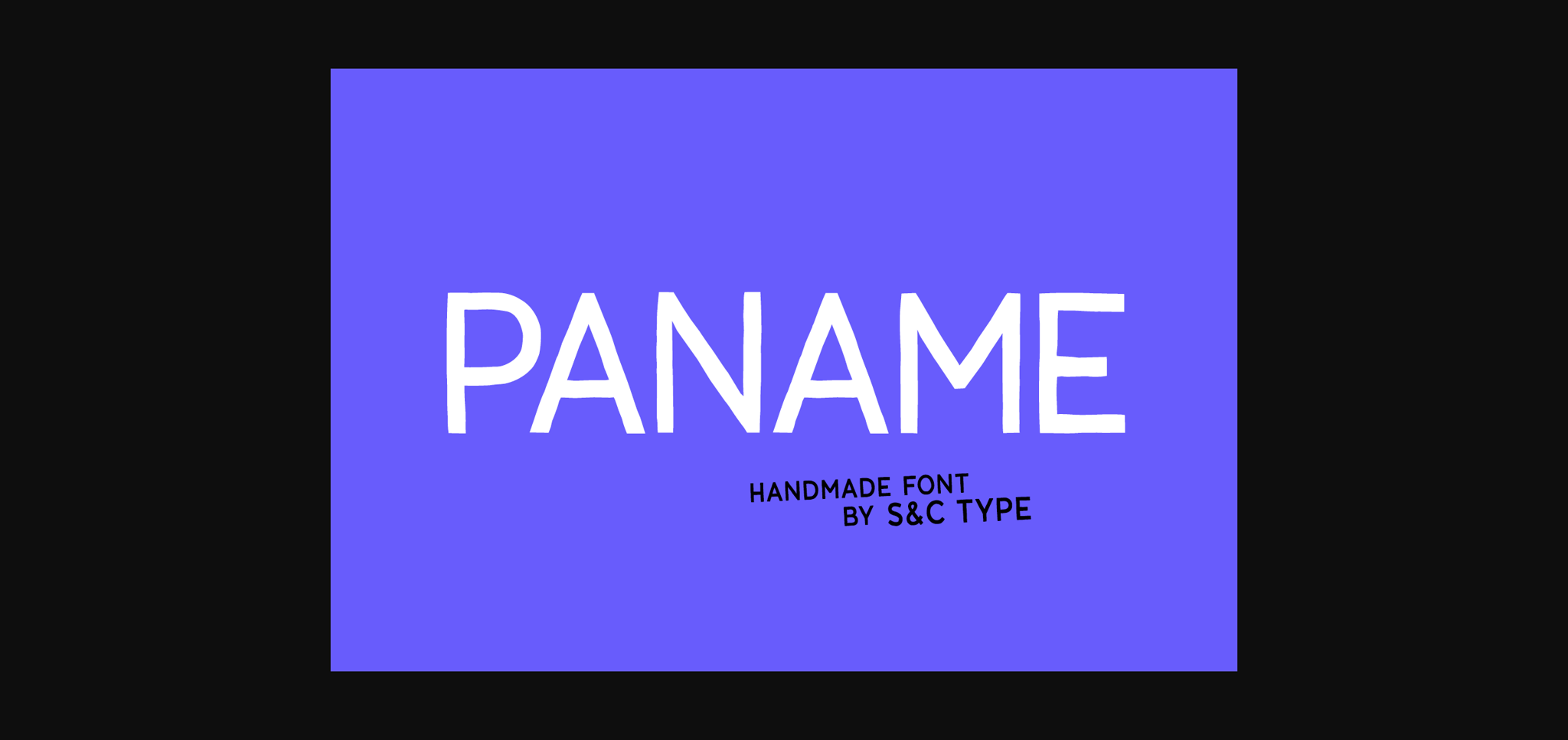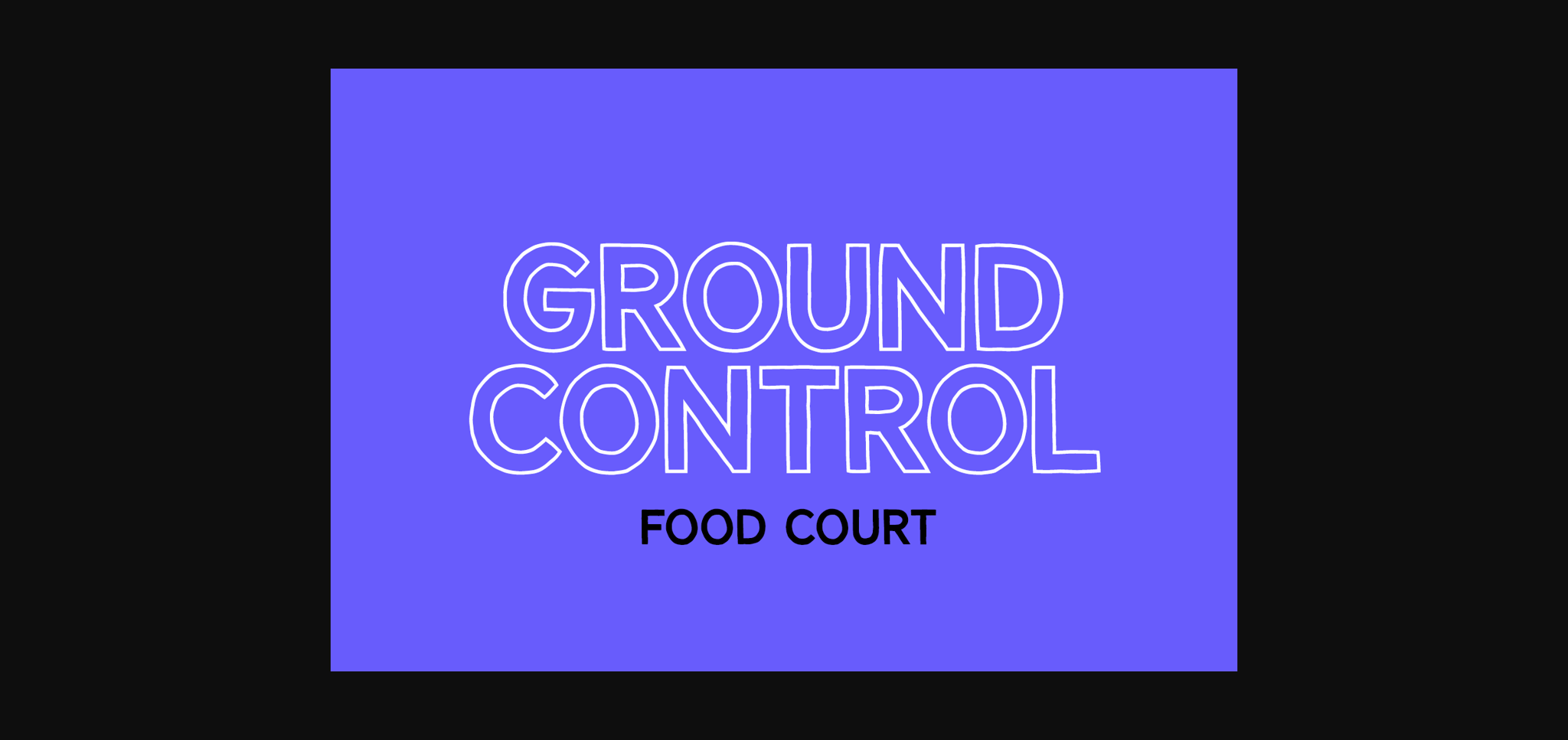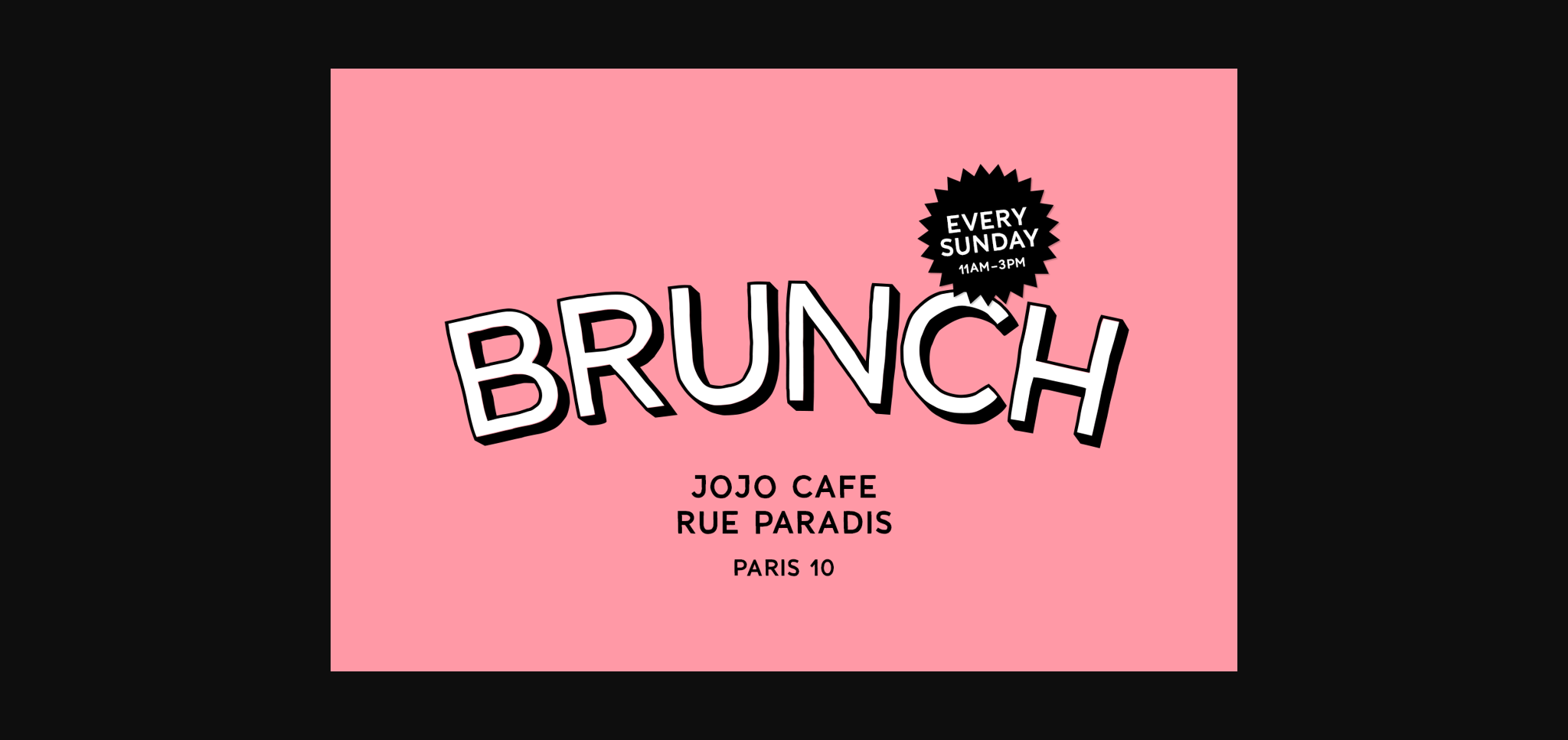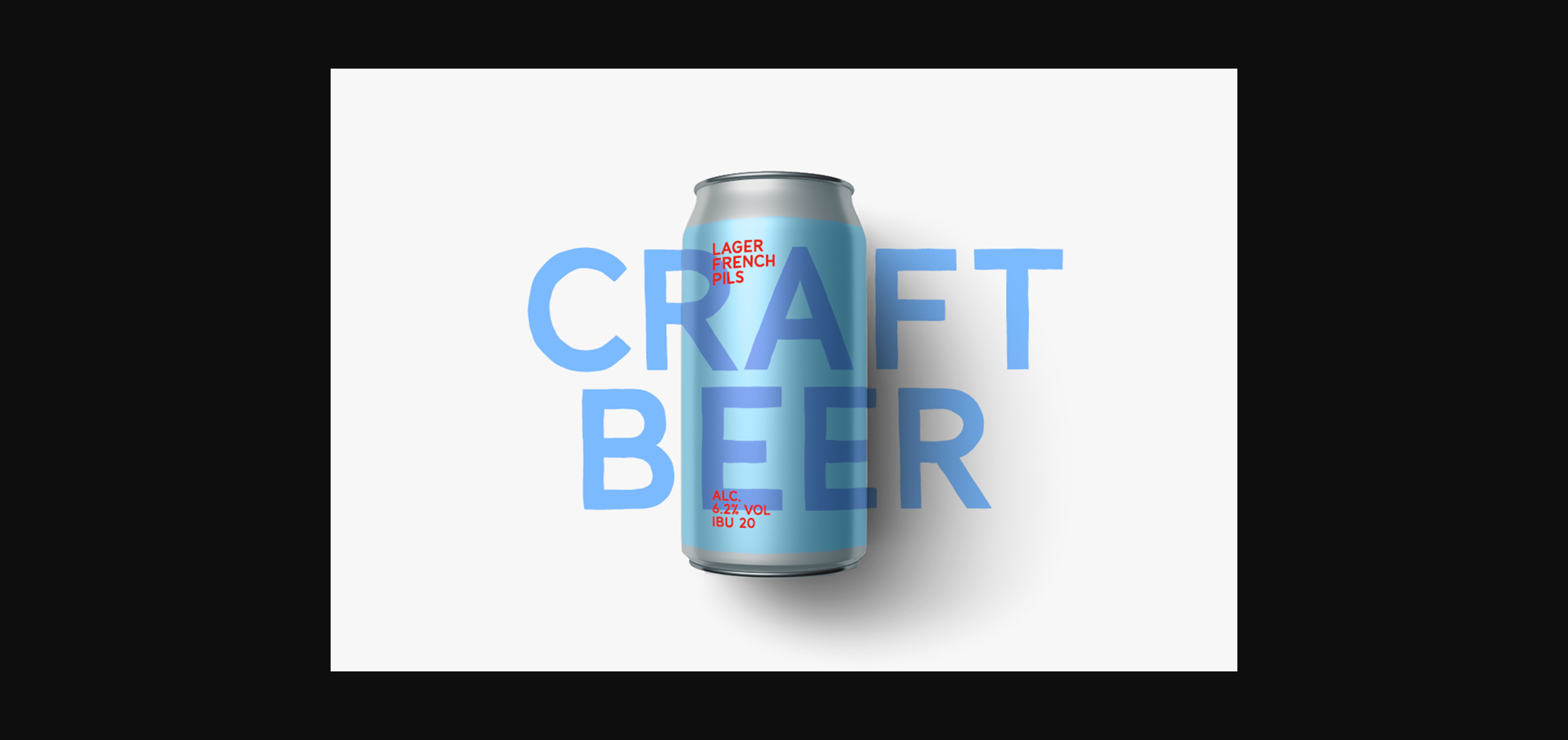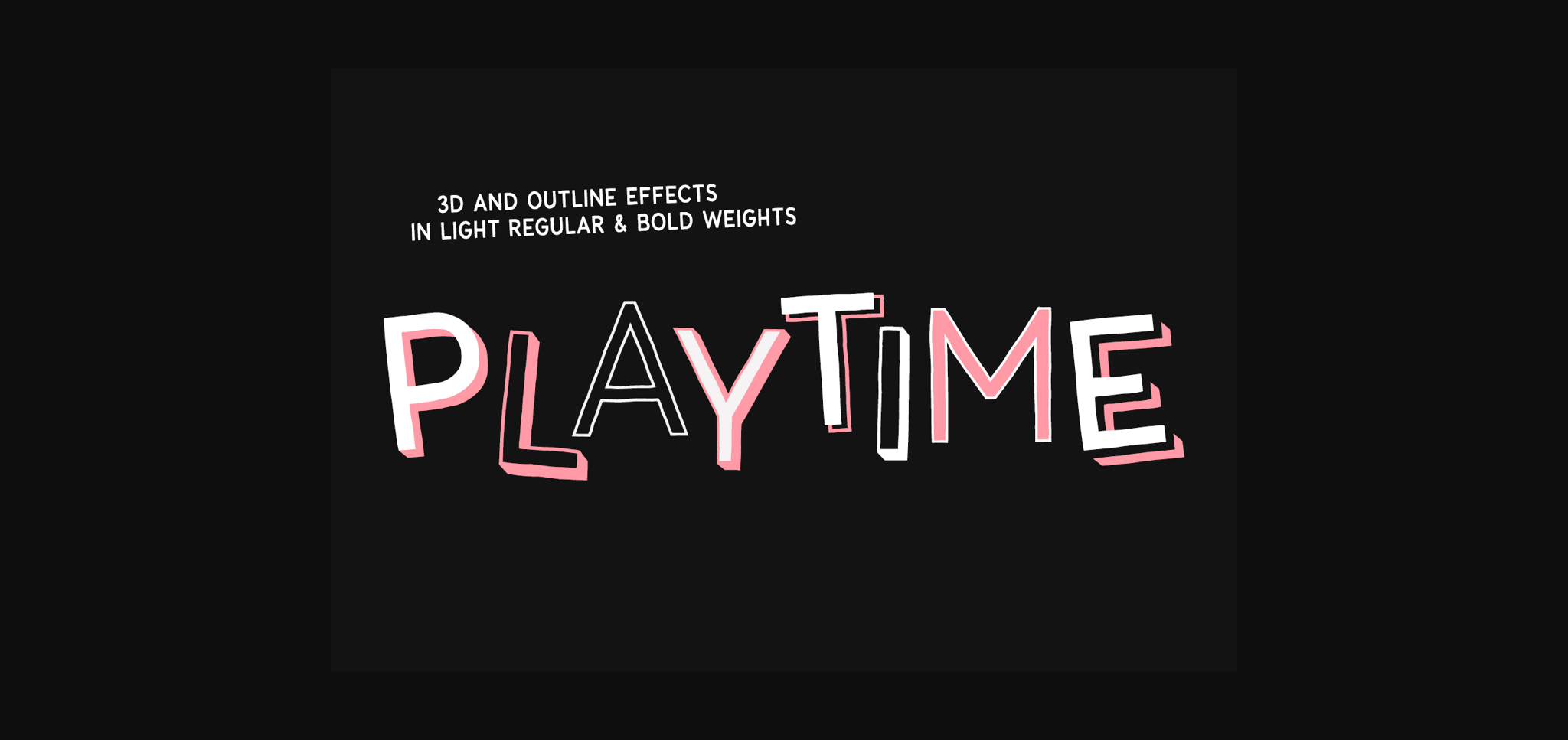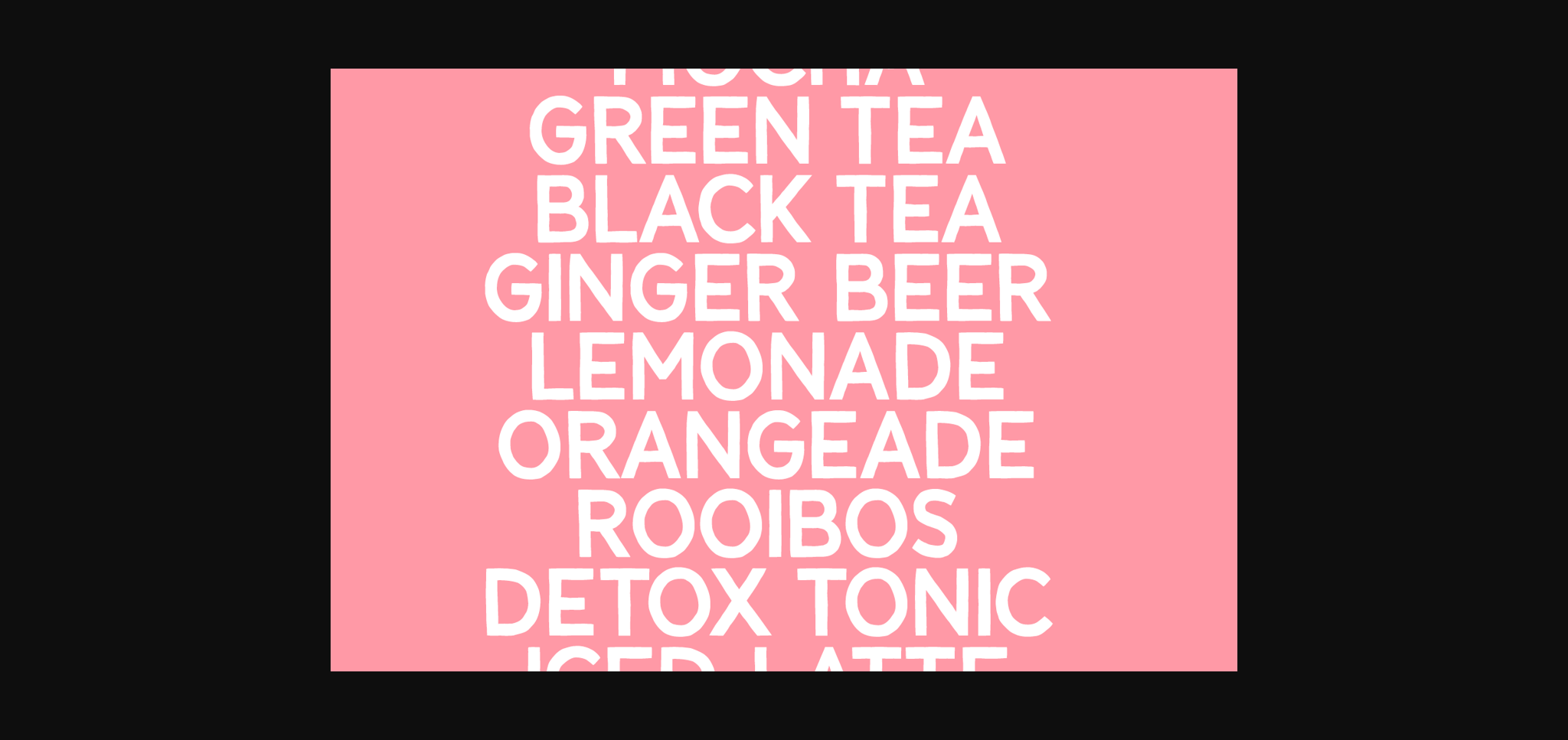
About Paname Font
Paname is a cool and neat sans-serif font. With its clean lines and balanced proportions, Paname is versatile and suitable for various design projects, from digital interfaces to print materials. Its simplicity and modern appeal make it a practical choice for communication.